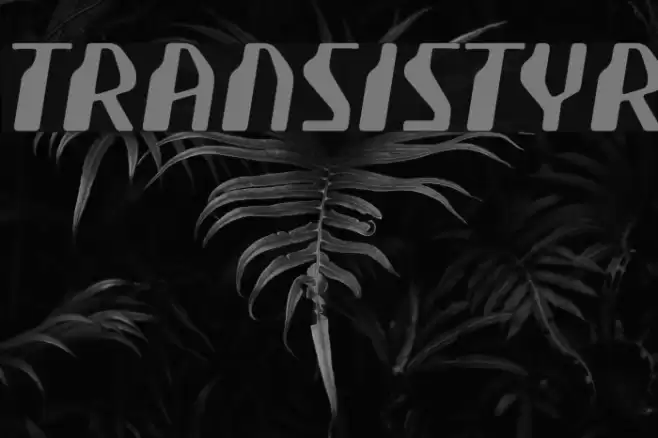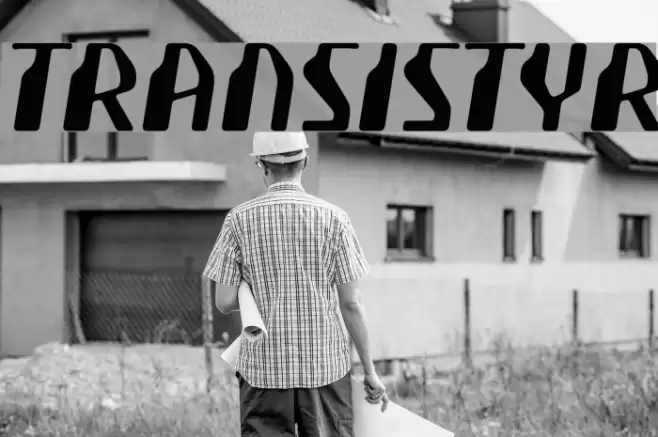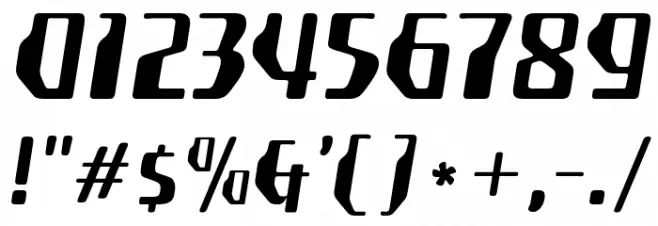
Transistyr Font
Transistyr Description
This font features a bold, angular design with a futuristic and dynamic appearance. The characters are slightly slanted, giving a sense of motion and energy. The strokes are thick and consistent, with sharp edges and geometric forms that create a modern and edgy look. The numbers and special characters maintain the same stylistic approach, ensuring uniformity across all elements. This font is highly legible and stands out due to its unique style, making it suitable for attention-grabbing designs.
A bold, angular font with a futuristic and dynamic style from Uncategorized fonts.